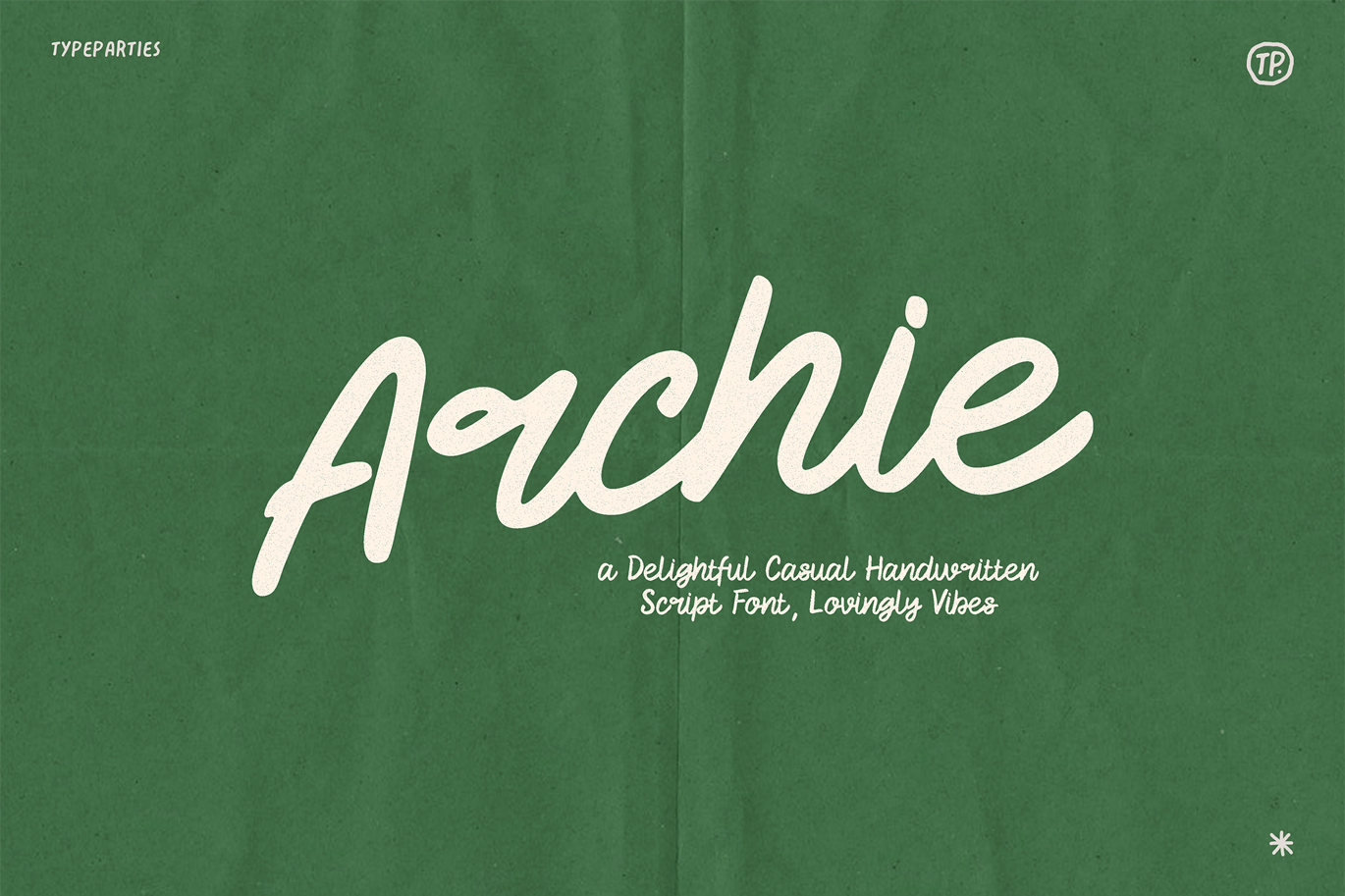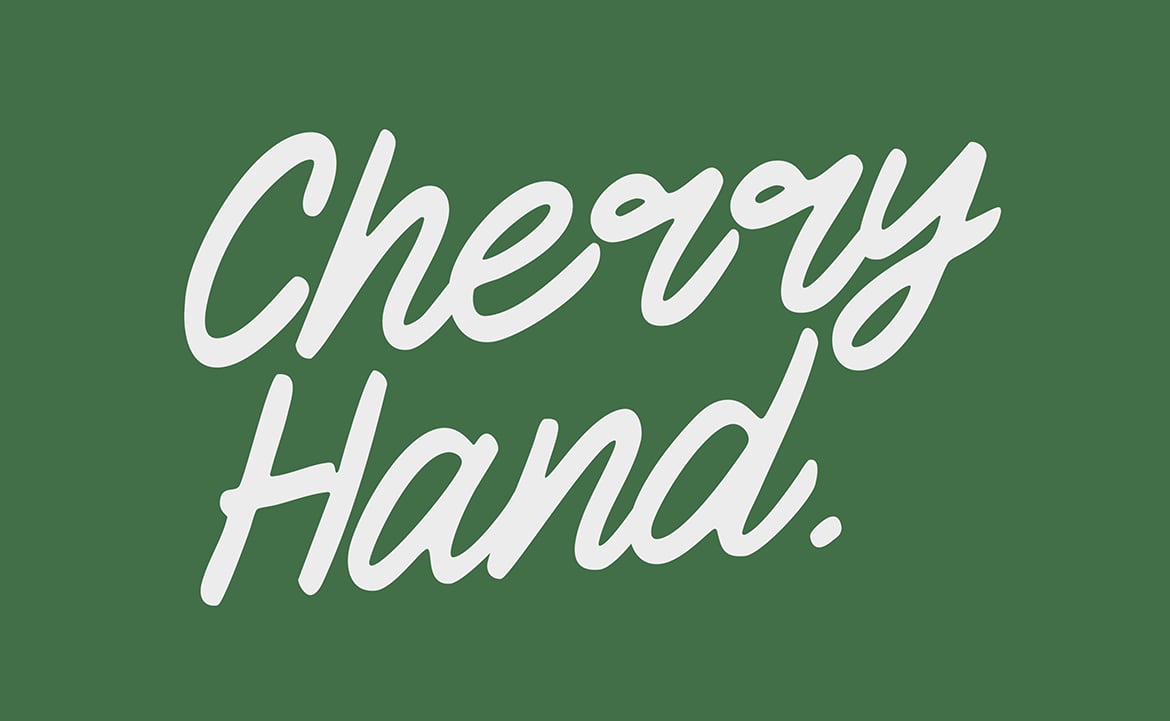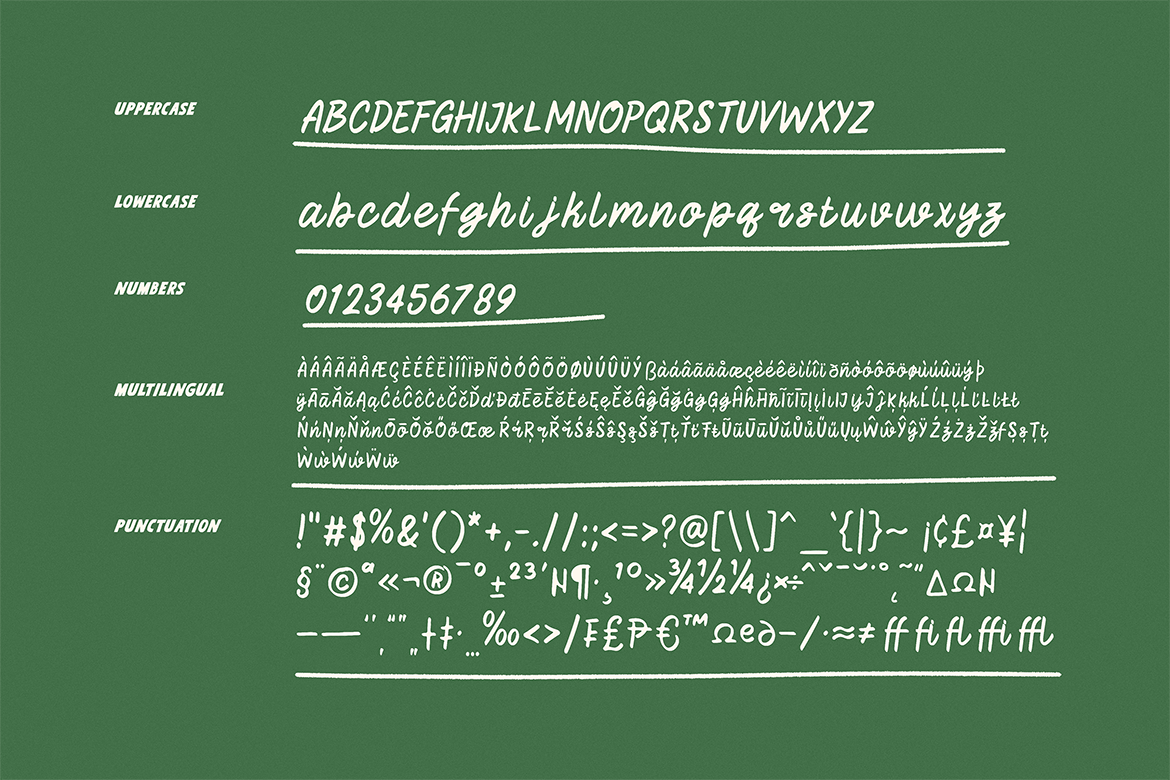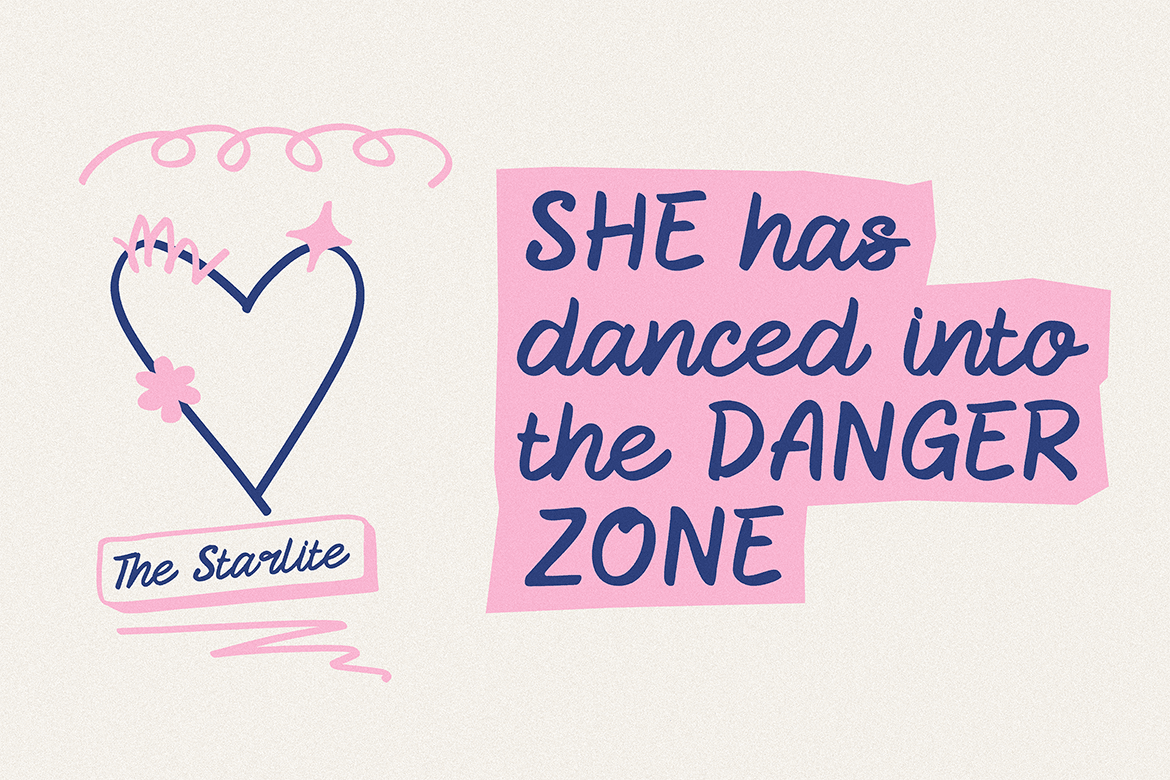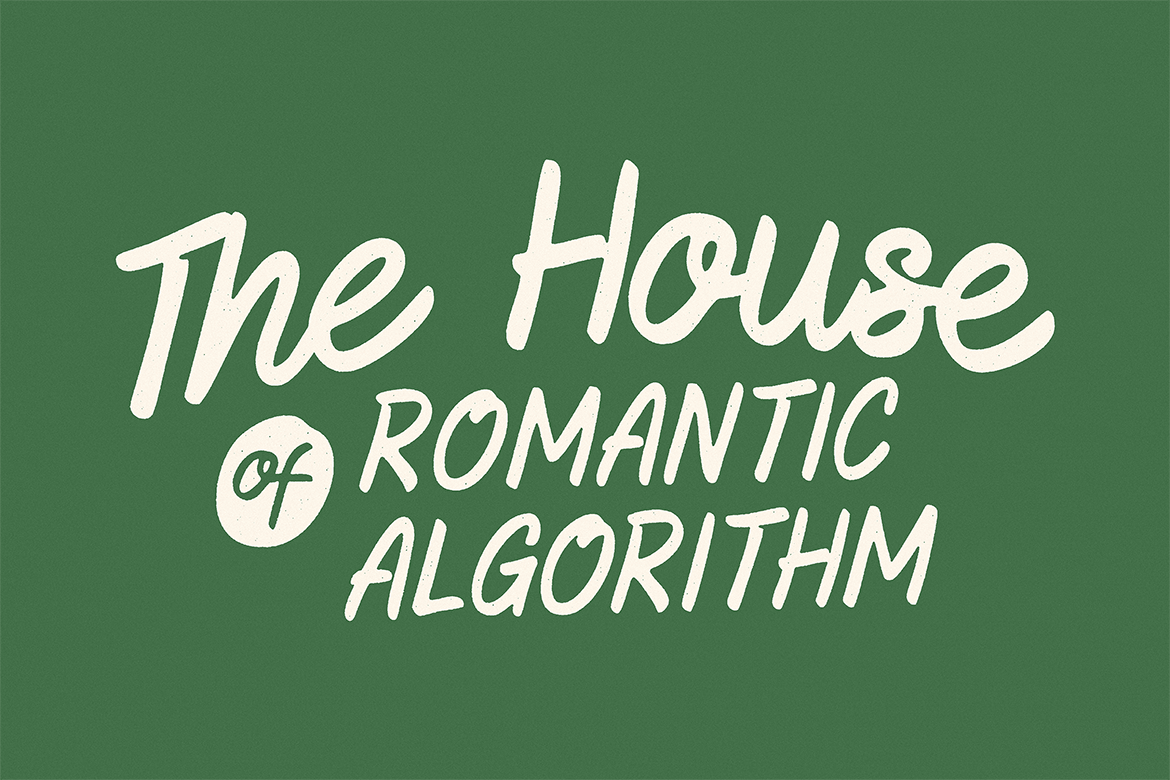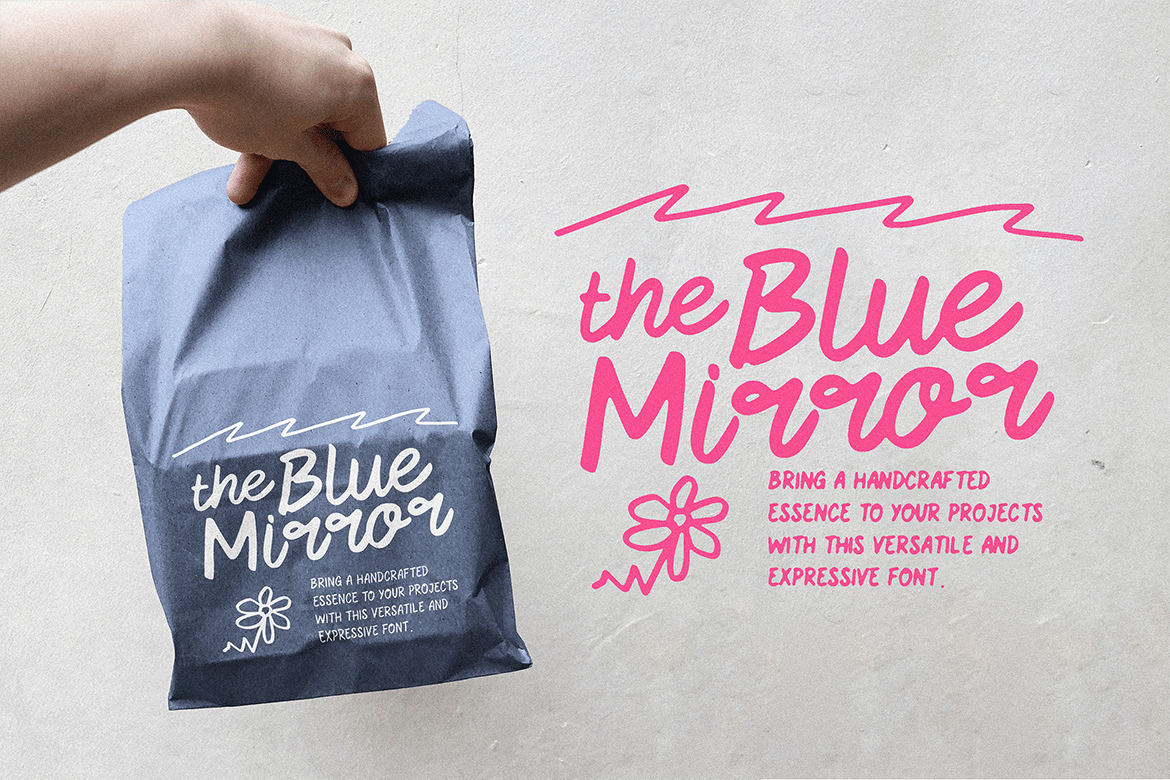
Archie
Archie Font is a casual handwritten script font that exudes charm and playful curves, Every curve and stroke reflects the artistry of lovingly touch, resulting in a font full of personality and warmth. Its relaxed, flowing style is perfect for adding a personal and approachable feel to your designs.